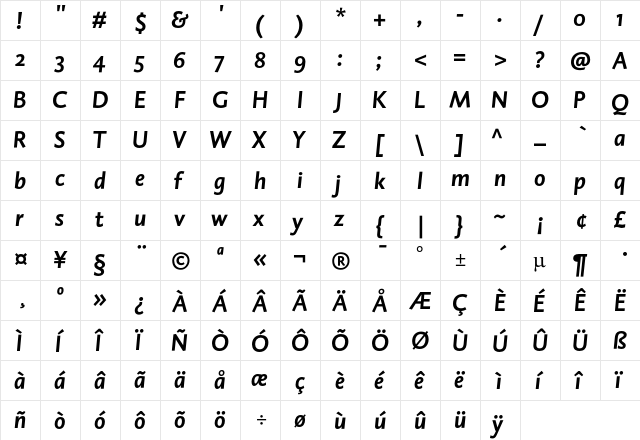
DTL Caspari ST Bold Italic Font Preview
Design Context for DTL Caspari Typeface
DTL Caspari offers clean, dependable letterforms without strong stylistic allegiance, making it a practical choice for designers who need flexibility. The dynamic lean of this cut emphasises speed and emphasis in any layout. Its bold stroke weight gives it real presence on the page.
Pro Tip: Try DTL Caspari for annotation and caption copy alongside an upright companion — the contrast in angle creates a dynamic but ordered typographic system.